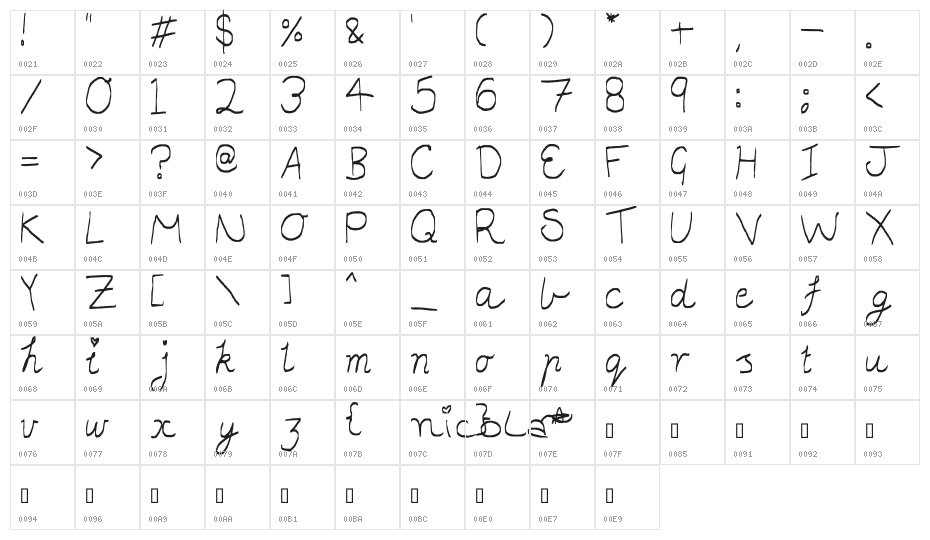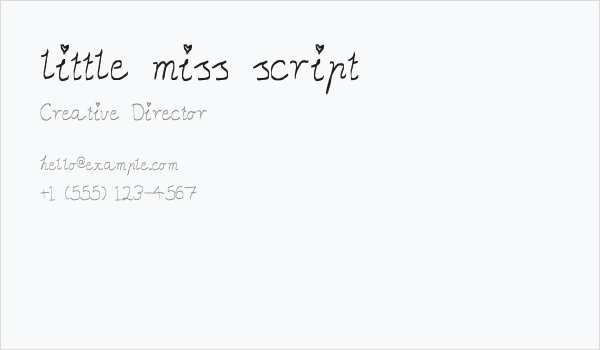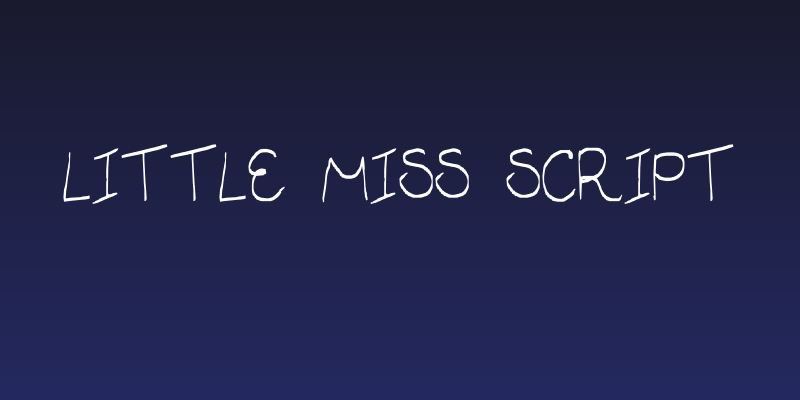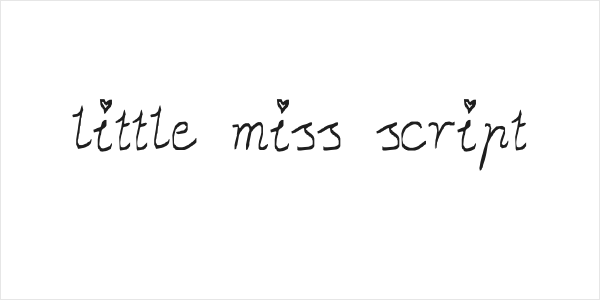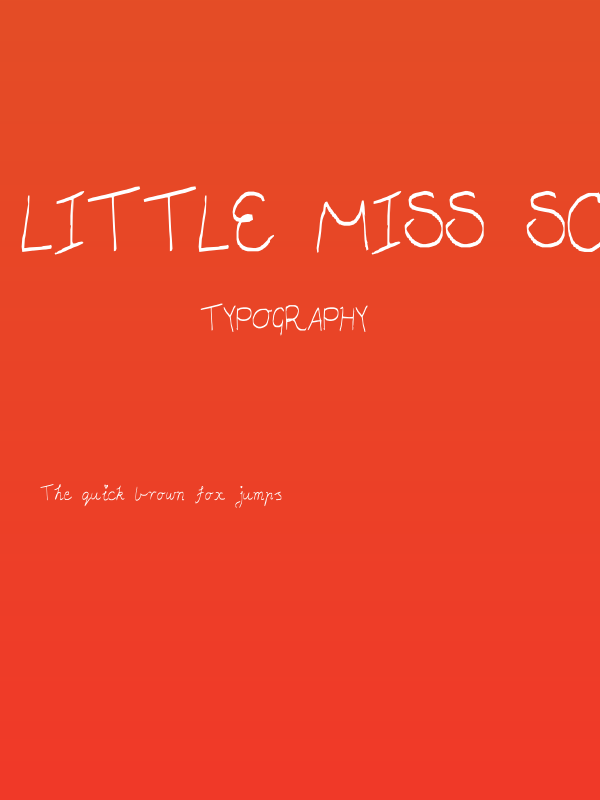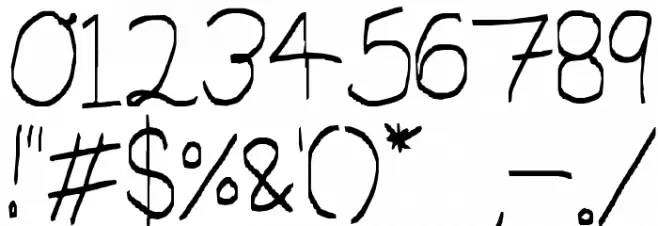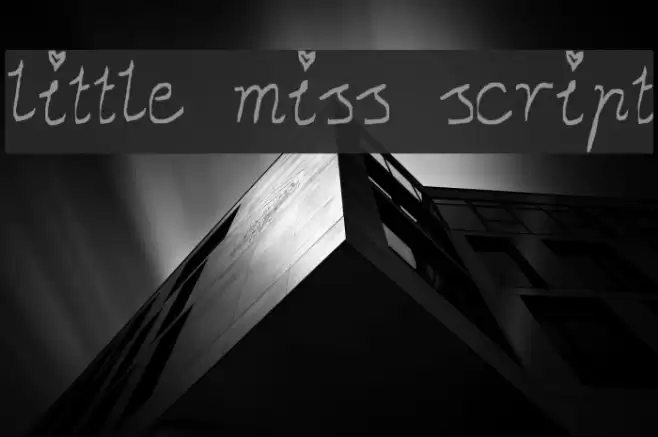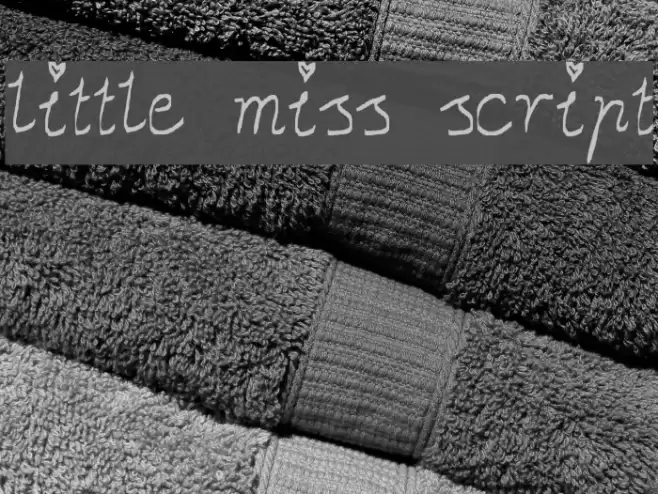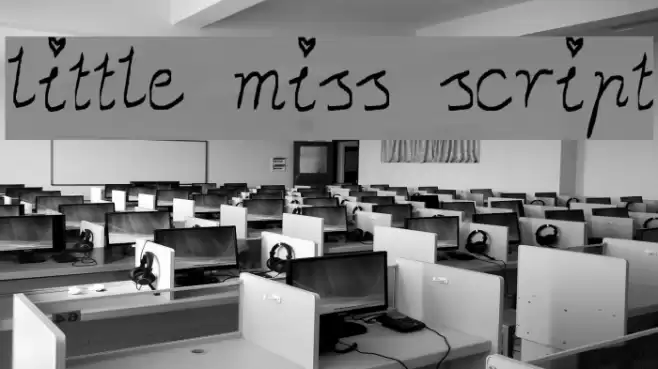
little miss script Font
little miss script Description
This font exudes a playful and whimsical charm, characterized by its handwritten style that mimics the fluidity and spontaneity of casual script. The letters are slightly irregular, adding a personal touch that feels both approachable and friendly. The uppercase letters maintain a consistent height, while the lowercase letters vary slightly in size, enhancing the font's informal nature. The strokes are moderately thick with a medium contrast, providing a clear and legible appearance. Special characters and numbers follow the same playful style, making this font versatile for various creative applications.
| Overall Style | Playful, Whimsical |
| Use Case | Greeting cards, Children's books, Playful branding |
| Proposed Projects | Ideal for greeting cards, children's books, playful branding, and personal projects that require a friendly and approachable feel. |